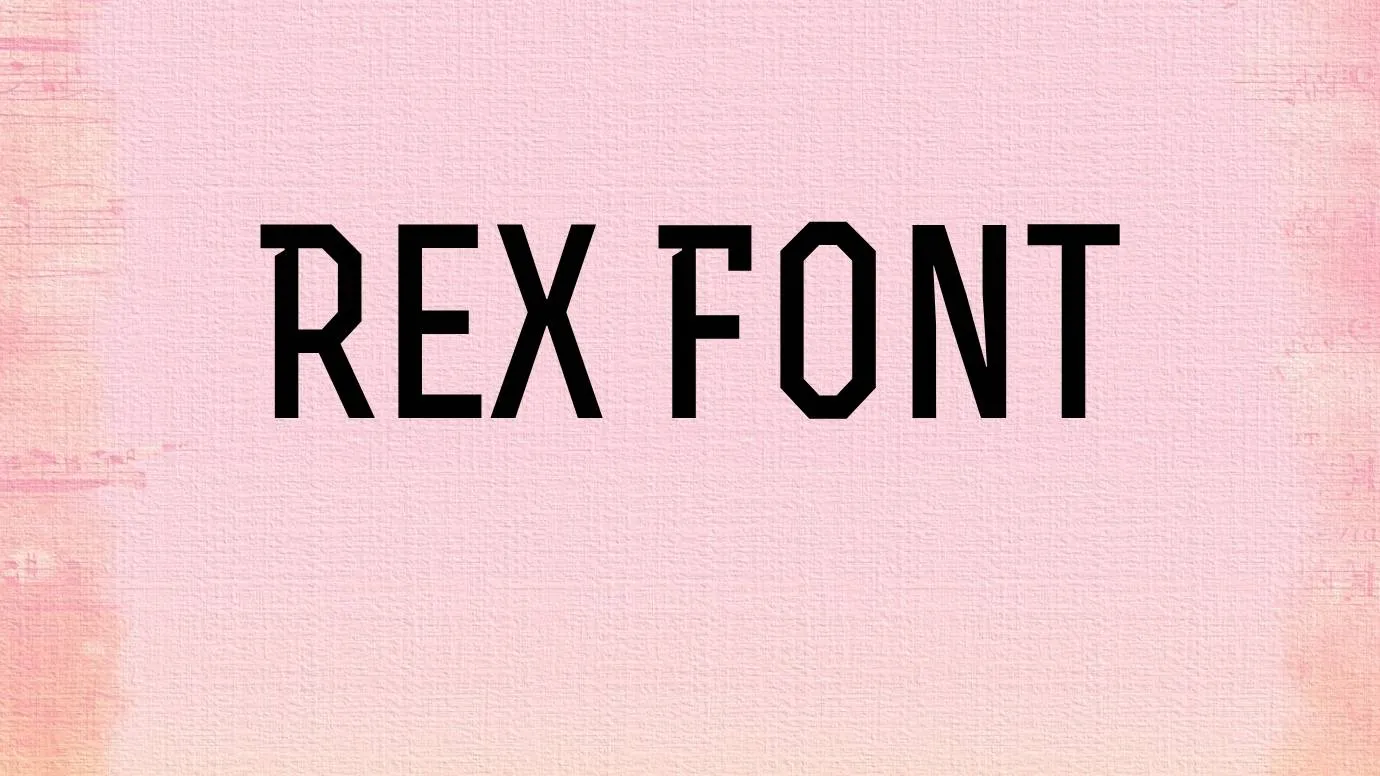
Rex Font Family is a display font created by the renowned type foundry Fontfabirc. This impressive font is available in three weights: bold, light, and inline, among various other styles.
This cozy typeface has various alternatives but the new york giants font is the perfect alternative to this typeface. The unique glyphs of this font are suitable for creating new and astonishing shape designs.
Rex Font